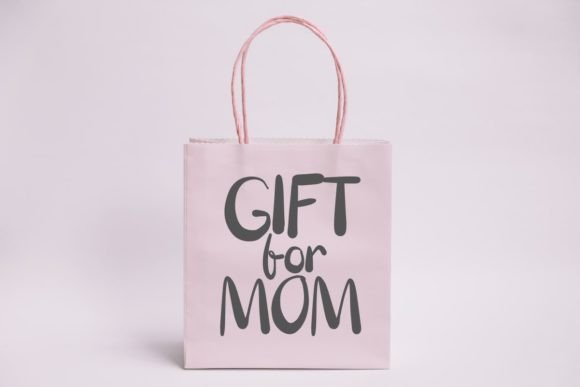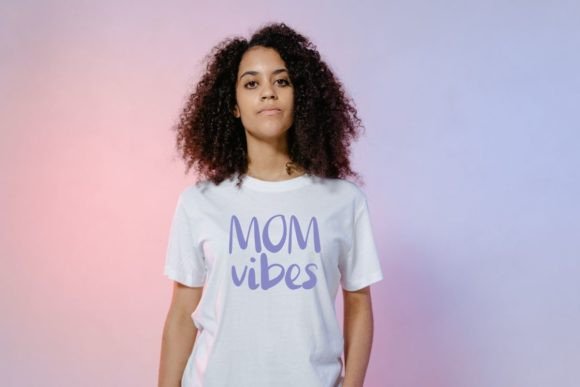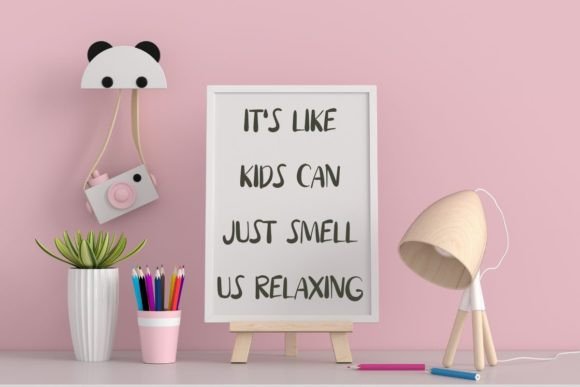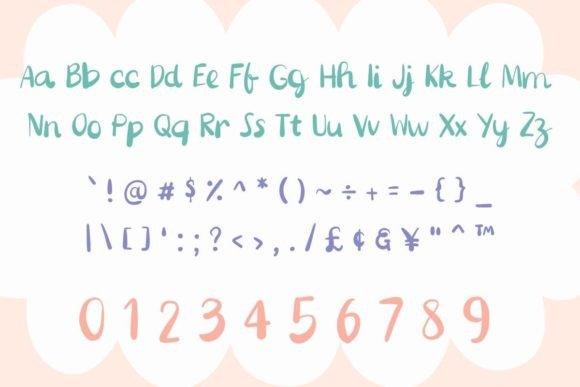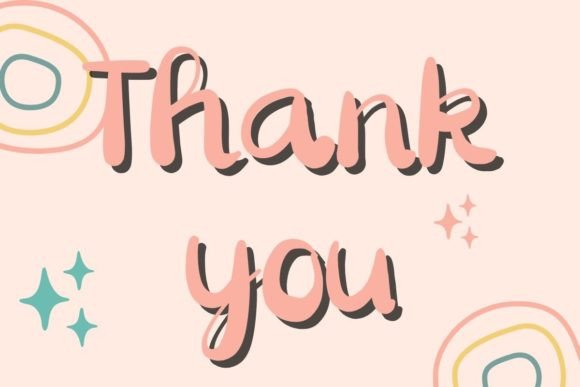
Introducing Alpha Font: The Friendly and Cute Handwritten Font for Your Creative Projects
Are you a designer, crafter, or DIY enthusiast looking for a font that can add a personal touch to your creative projects? Look no further than Alpha Font, a friendly and cute handwritten font that’s perfect for a wide range of applications. From greeting cards to kids’ crafts, Alpha Font is guaranteed to bring a sweet and playful touch to your next design.
What is Alpha Font?
Alpha Font is a versatile script font that’s designed to be both fun and functional. Its handwritten style gives it a warm and approachable feel, making it perfect for projects that require a personal touch. Whether you’re creating a greeting card, a kids’ craft, or a social media graphic, Alpha Font is the perfect choice.
Key Features of Alpha Font
- Handwritten style: Alpha Font has a unique handwritten style that’s both playful and elegant.
- Versatile: This font can be used for a wide range of applications, from greeting cards to kids’ crafts, and even social media graphics.
- Easy to read: Despite its playful style, Alpha Font is easy to read and understand, making it perfect for projects that require clear communication.
- Cute and friendly: The font’s cute and friendly style makes it perfect for projects that require a personal touch.
Uses of Alpha Font
Alpha Font is a versatile font that can be used for a wide range of applications, including:
- Greeting cards: Add a personal touch to your greeting cards with Alpha Font’s playful and elegant style.
- Kids’ crafts: Alpha Font is perfect for kids’ crafts, such as making personalized stickers, coloring pages, and more.
- Social media graphics: Use Alpha Font to create fun and engaging social media graphics that are sure to grab attention.
- DIY projects: Alpha Font is perfect for DIY projects, such as making personalized signs, labels, and more.
Benefits of Using Alpha Font
There are many benefits to using Alpha Font for your creative projects. Some of the benefits include:
- Unique style: Alpha Font has a unique style that’s sure to set your projects apart from others.
- Easily readable: The font is easy to read, making it perfect for projects that require clear communication.
- Versatile: Alpha Font can be used for a wide range of applications, making it a great addition to any designer’s toolkit.
- Cute and friendly: The font’s cute and friendly style makes it perfect for projects that require a personal touch.
Tips for Using Alpha Font
Here are some tips for using Alpha Font in your creative projects:
- Use it with bright colors: Alpha Font looks great with bright colors, so don’t be afraid to experiment with different color combinations.
- Pair it with other fonts: Alpha Font can be paired with other fonts to create a unique and interesting look.
- Experiment with different sizes: Alpha Font looks great in different sizes, so experiment with different sizes to find the one that works best for your project.
Alpha Font is a friendly and cute handwritten font that’s perfect for a wide range of creative projects. Its versatile style, ease of use, and cute and friendly look make it a great addition to any designer’s toolkit. Whether you’re creating a greeting card, a kids’ craft, or a social media graphic, Alpha Font is sure to bring a sweet and playful touch to your next design.